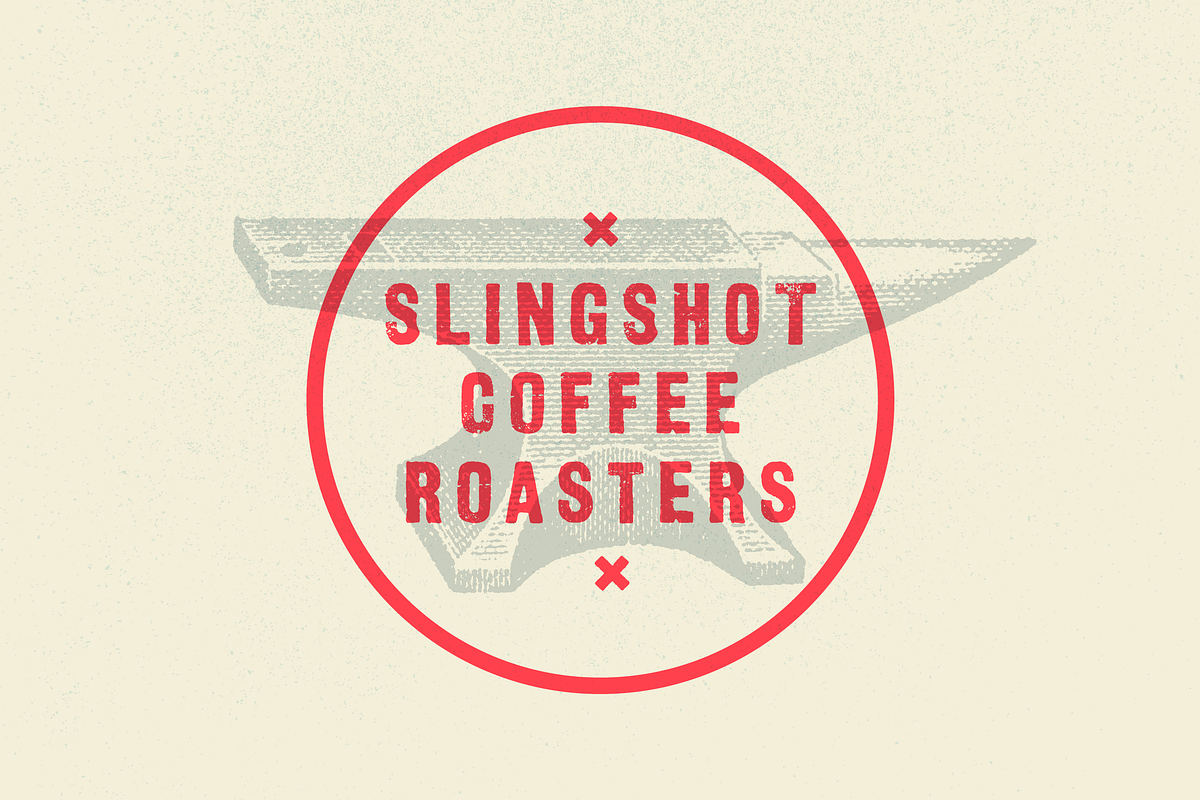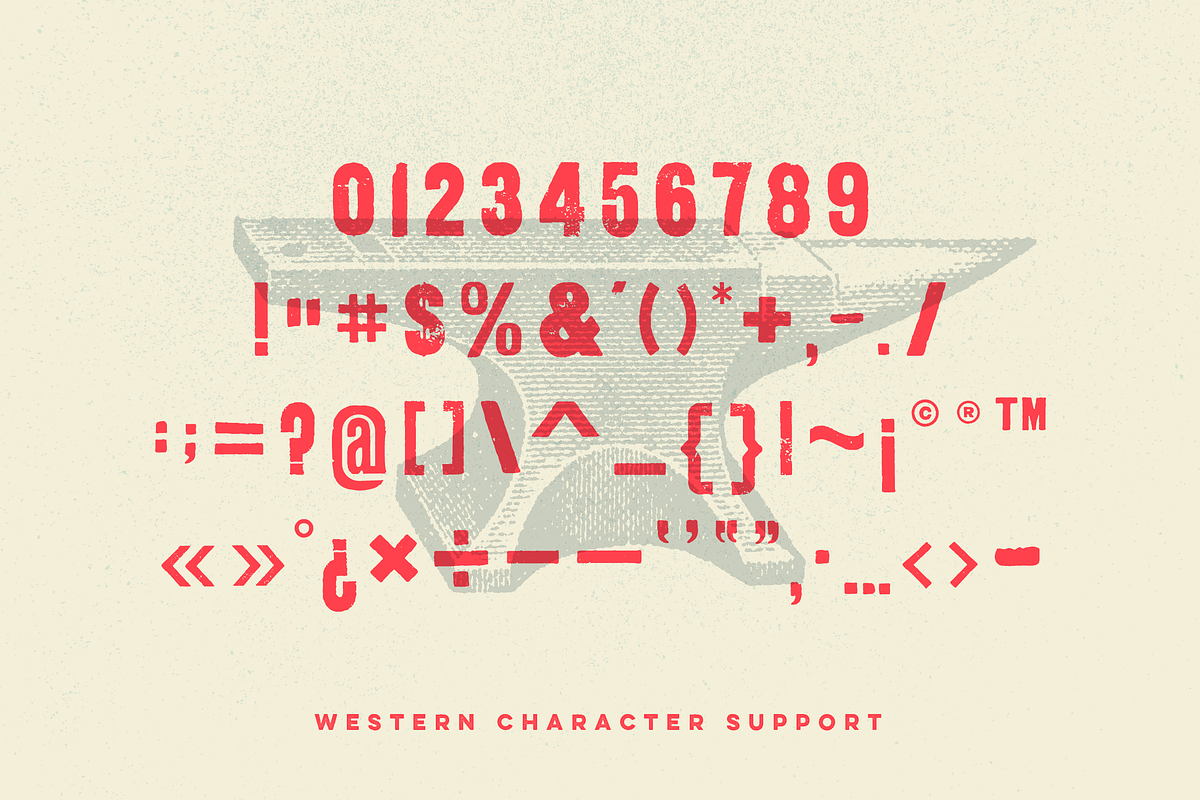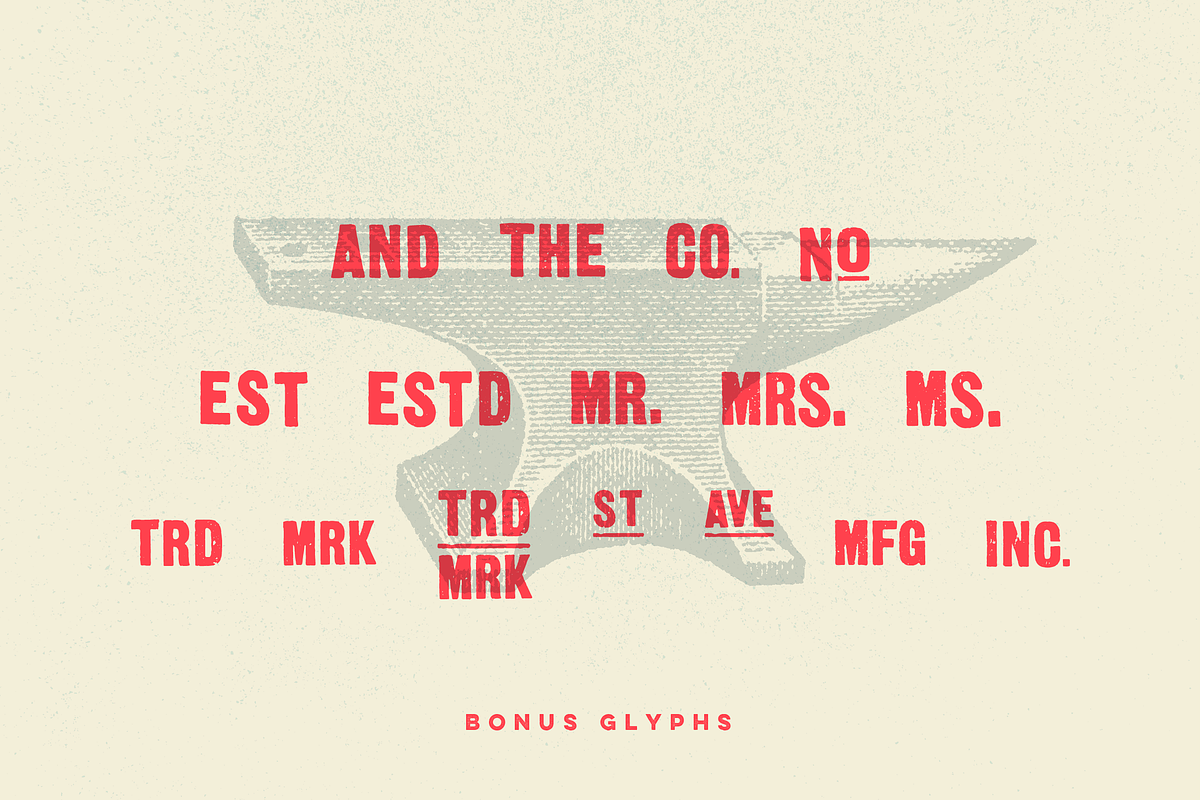
Anvil - Woodblock Display Font
Anvil is a vintage-style Open Type font sourced from authentic early-century printed materials!
Inspired by woodblock and hand-set typography, Anvil is a great addition to any designer’s font collection. Thick and mildly condensed, with a dose of grit, this font adds the character and strength of an era gone by to your project. Anvil is perfect for headlines, posters, merchandise and branding.
Note: Stylistic alternates have been set as uppercase, and can be accessed by simply holding shift or using the caps-lock key on your keyboard. Bonus glyphs must be accessed through the "Glyphs" panel (or similar) within each respective design or layout program.
- What you get: ANVIL OTF display font (all-caps) with stylistic alternates, western character support and BONUS glyphs/catch-words.